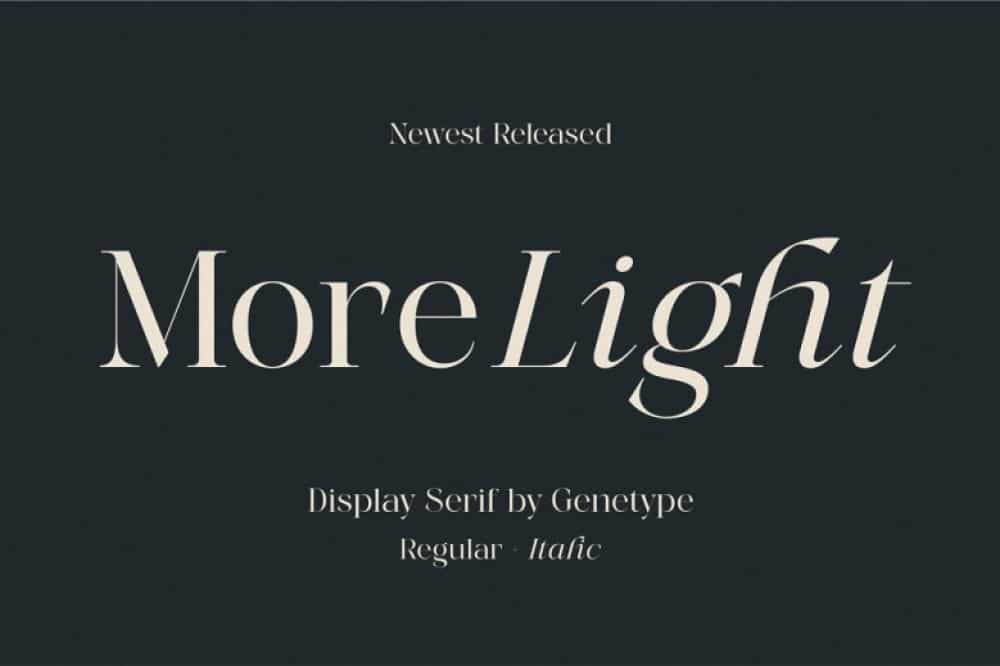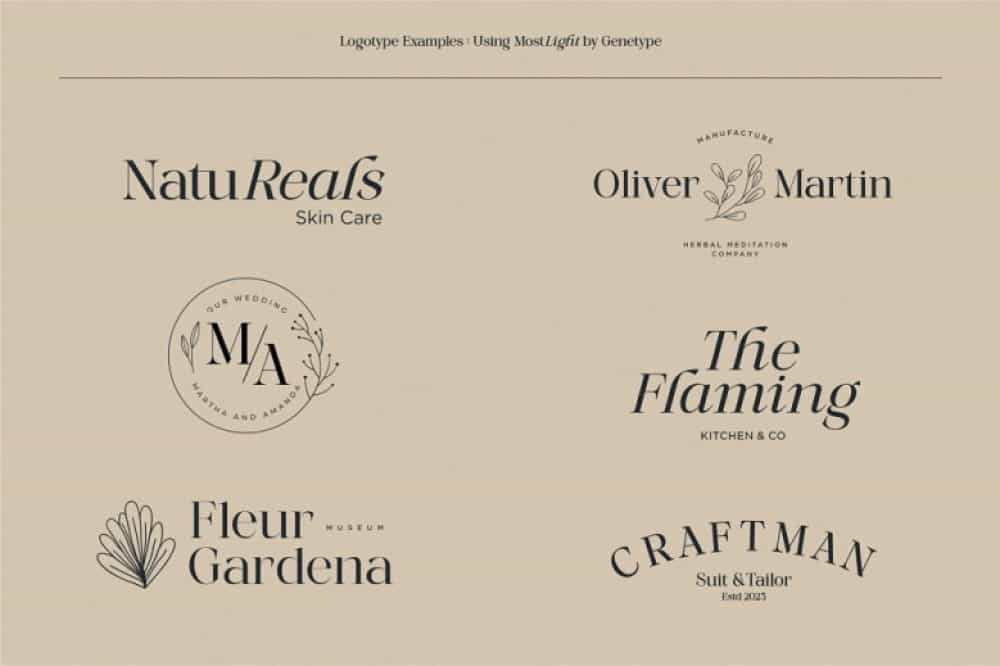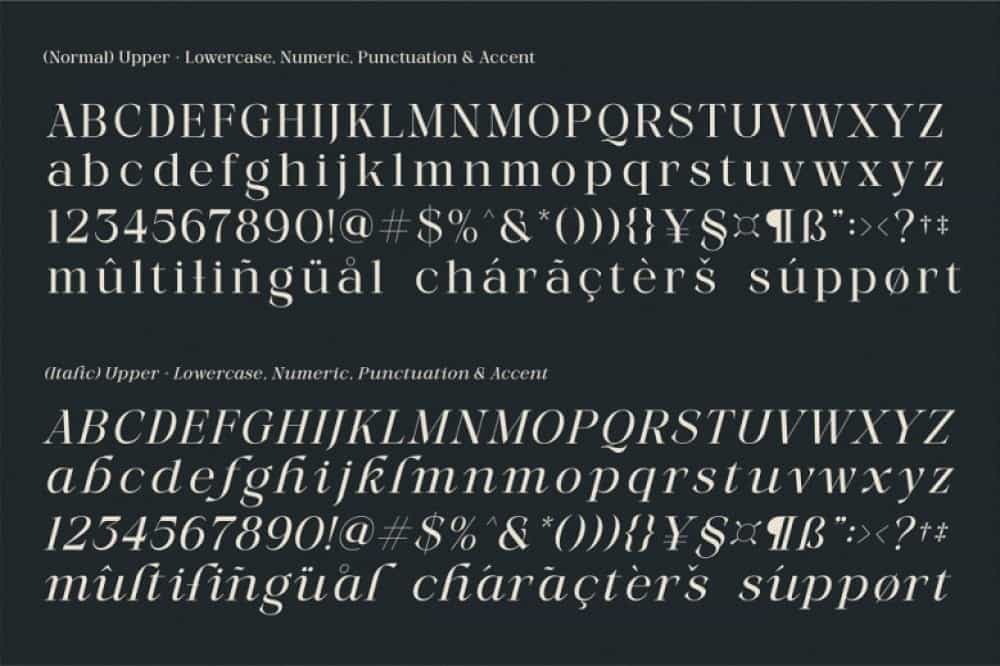
Most Light is an elegant font in the serif category for the contemporary aesthetic. That is why it can be used in any field, from logos to books: the design is simple and harmonious. The design of More Light is a modern one with a hint of elegance that makes it suitable for use in any situation and guarantees the good readability.